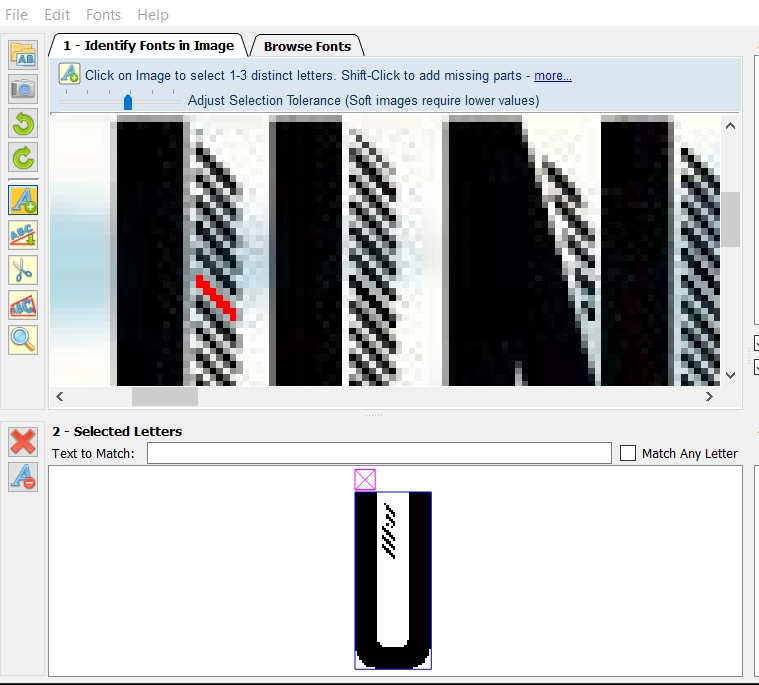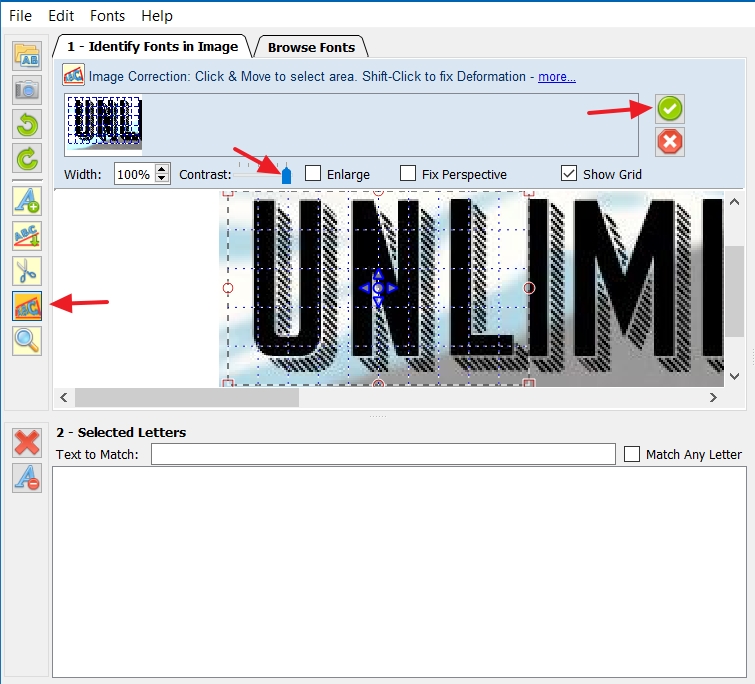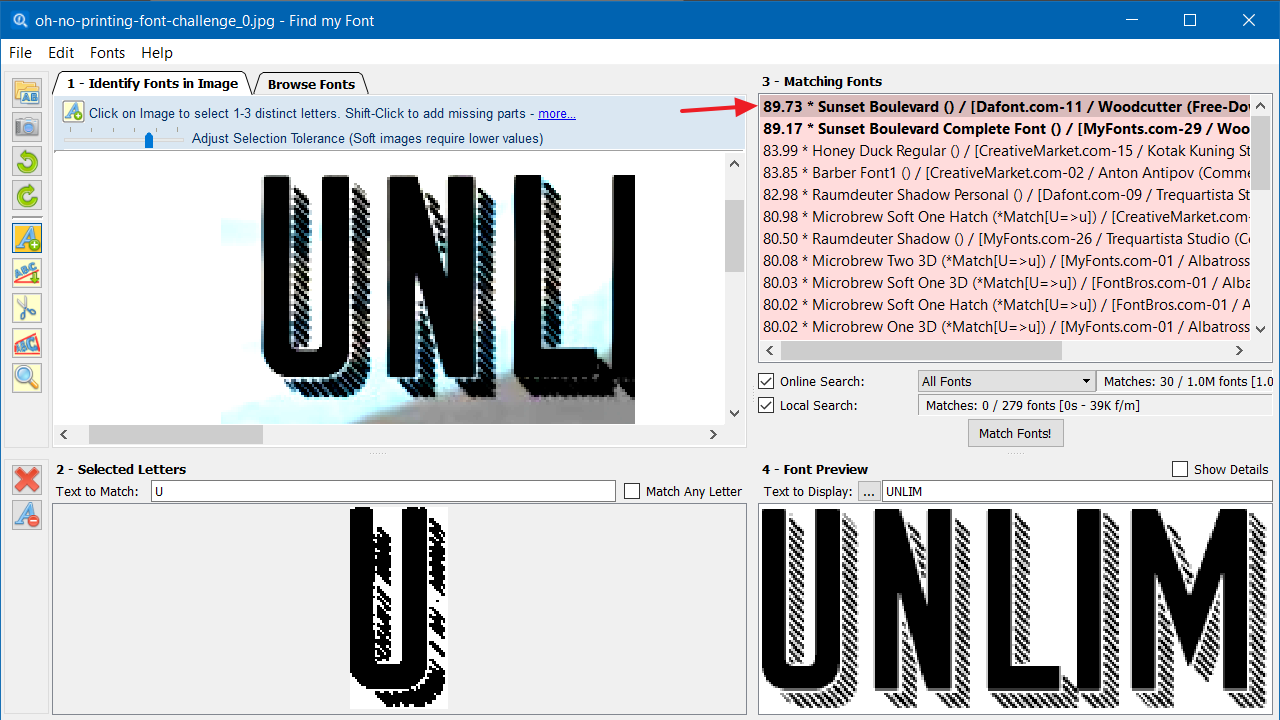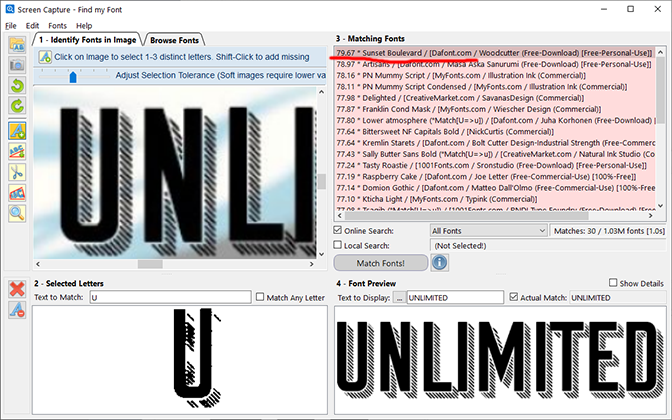
Can somebody point me to a way or tutorial how i am searching for more "exotic" fonts?
Example:
I tried cutting:
Then i cleaned up the background:
that came already close, but it wasn´t the right font..
Inverted the type:
-> a step back
So in the end i just looked up the .pdf and found the font:
so, how would be the best (or right) way, to handle fonts like that?
This image is both fascinating and quite challenging when it comes to font identification.
A key thing to remember is that the letter you choose for matching needs to be distinctive and should include all of the visual components that make the font unique. In this case, selecting just one letter is actually enough—any of them would work. I chose the first “U”, because its shape is very unusual and appears in only a handful of typefaces.
The real challenge was selecting all the parts of the character, including the fine shadow lines. At first, I tried selecting the primary glyph and then, while holding Shift, manually adding the shadow strokes. This was extremely tedious, and the tiniest mouse slip would accidentally grab a chunk of background—forcing me to clear everything and start over.
To make this easier, I used a smarter approach: the contrast tool.
I selected the first three letters and opened the deformation tool. Then I pushed the contrast all the way to the right. This thickened the shadow lines, and in some areas even connected them, which made the selection process much easier. After just a few clicks, most of the shadow was captured cleanly.
From there, I simply specified that the letter was “U”, clicked Match Fonts, and voilà—
the top result was Sunset Boulevard.
"Exotic" fonts have usually more distinct letters and are easier to match, but sometimes is a bit tricky to select the appropriate
letters.
I selected just the first letter of your image and as you can see the first match in the list is the correct font.
Some rules:
1. Try to select as many details as possible by adding parts of the letter one by one by Ctrl-click
2. There is no need to select ALL details, as long as you select some of
them at the letter image boundaries
3. Adding black background, inverting the image or selecting a much bigger image
of the original letter does not help at all, in fact it destroys the
matching accuracy of Find my Font
One little thing.. is there an "Undo" for the selecting process? (like
ctrl is plus and ctrl-shift is minus?) My two left hands with 5 thumbs
on each are terrible at pointing correctly and it took some time not to
select the whole background...
Look at my answer for a way to select the shadow lines easier.